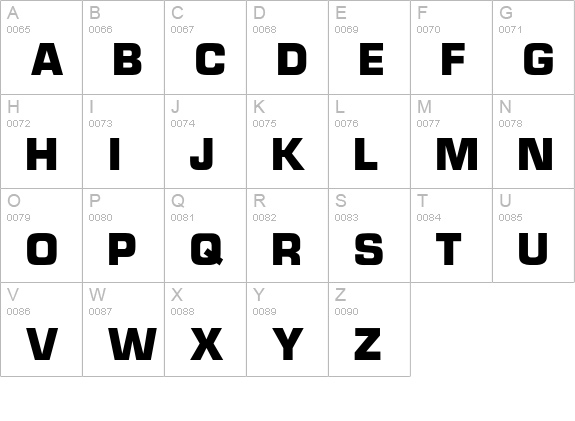
MicroTechnicBold Font Details
MicroTechnicBold is a sleek and modern typeface that exudes a sense of sophistication and professionalism. With its sharp lines and bold presence, this font is perfect for creating attention-grabbing headlines, logos, and branding materials. The strong, angular design of MicroTechnicBold makes it a versatile choice for a wide range of design projects, from print to digital. And the best part? MicroTechnicBold is available for free download at FontsMarket.com. This means that you can easily access this high-quality font without any cost, making it a valuable addition to your design toolkit. Whether you're a seasoned designer looking to refresh your font collection or a newcomer in need of a standout typeface, MicroTechnicBold is sure to impress with its bold and modern aesthetic. Download it today and elevate your designs with this stylish and impactful font.